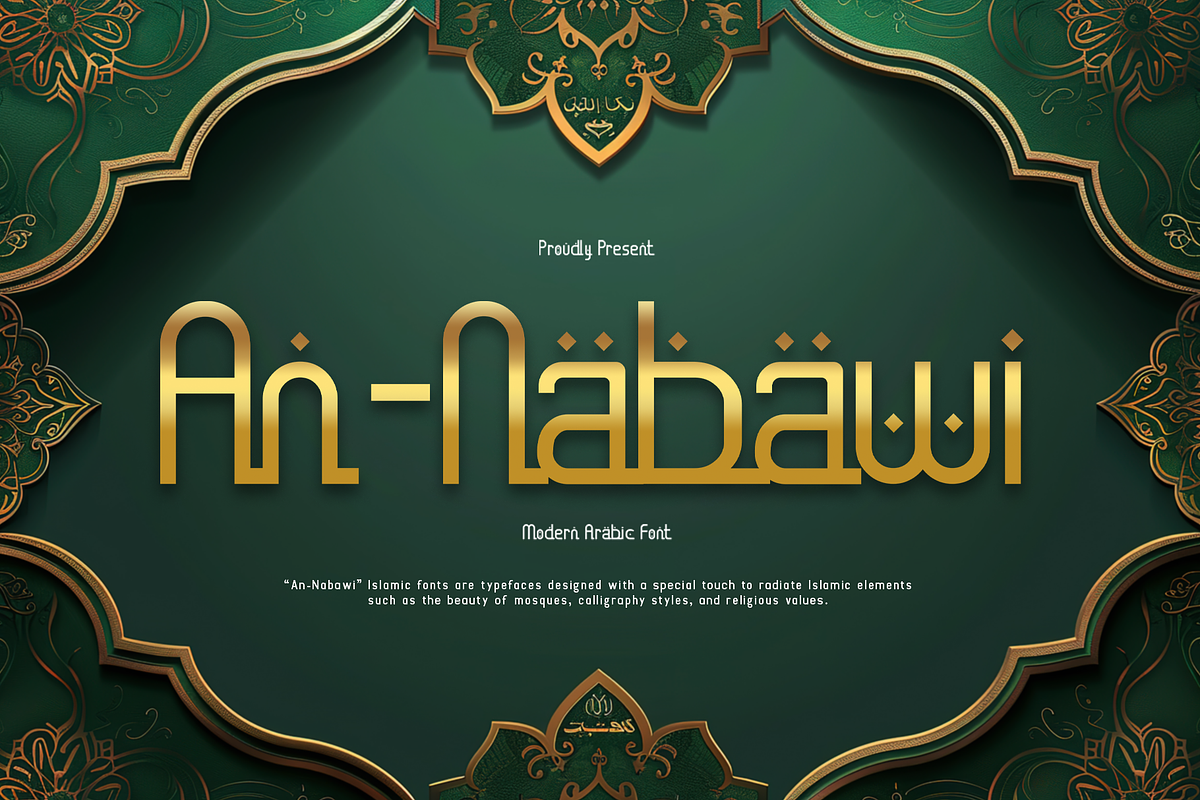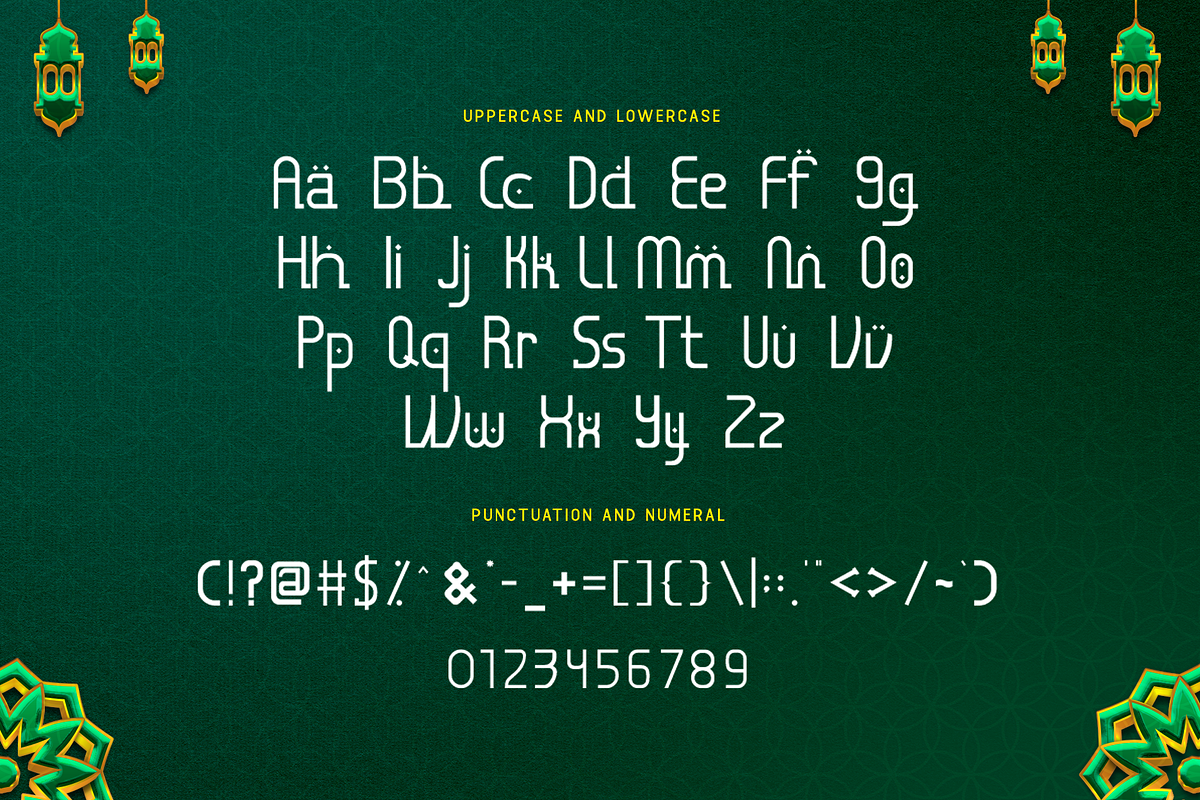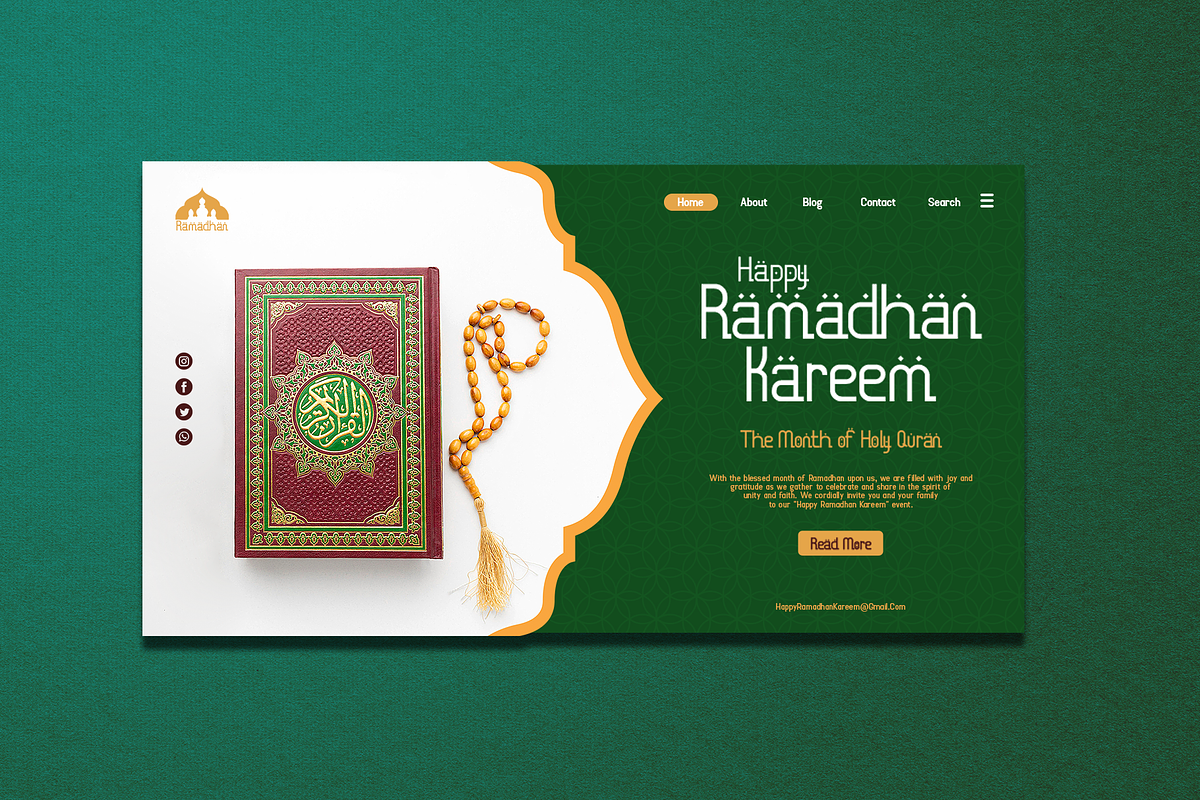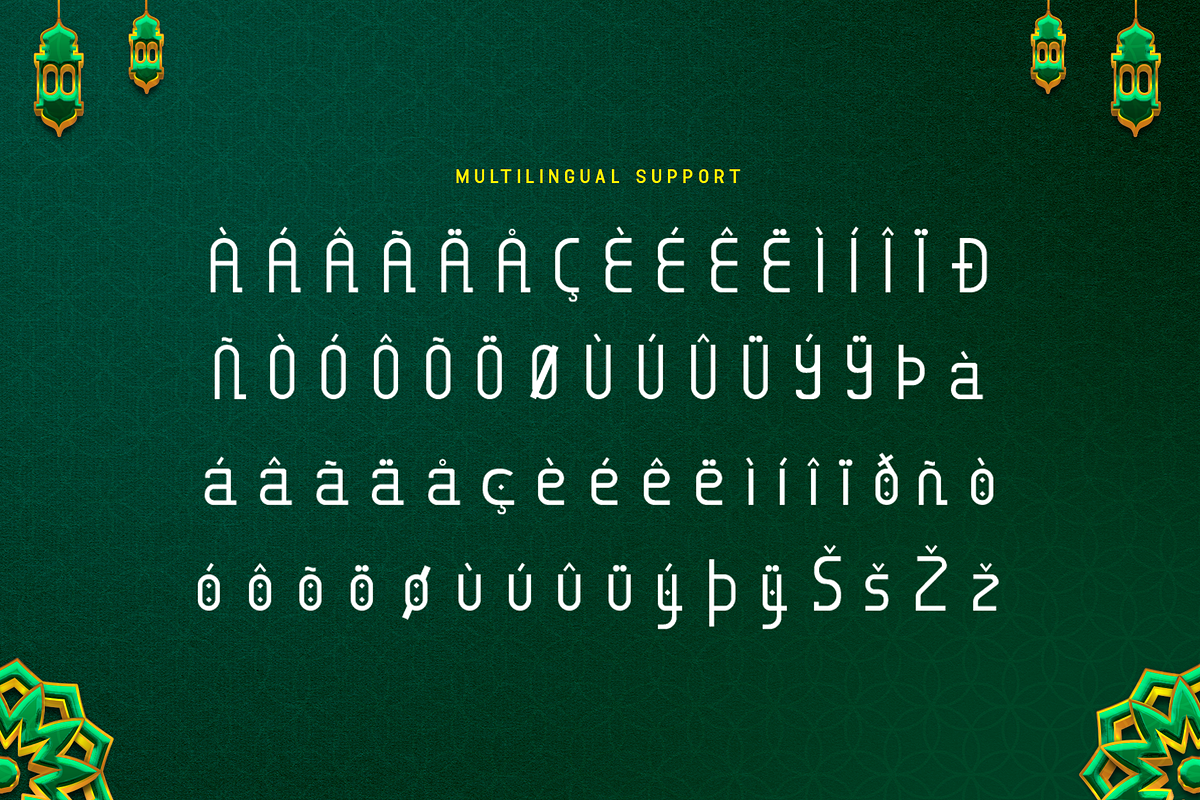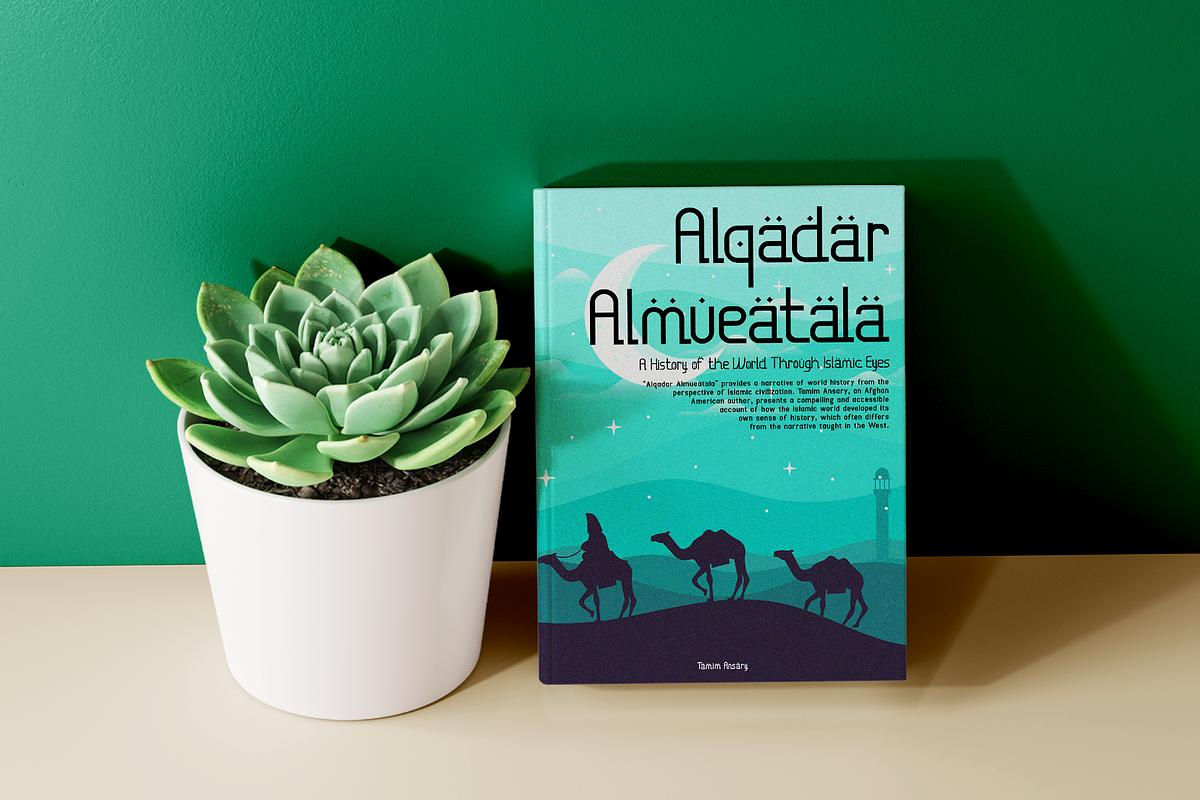
An-Nabawi – A Modern Arabic Font
An-Nabawi is a beautifully crafted modern Arabic font that seamlessly blends traditional calligraphy with contemporary aesthetics. Its smooth curves, balanced proportions, and elegant flow make it perfect for a variety of projects, such as branding, posters, invitations, editorial layouts, and product packaging. This font offers both beauty and functionality, ensuring your text remains visually striking and readable.
Designed with versatility in mind, An-Nabawi enhances bilingual projects by delivering a cohesive look in Arabic typography. Whether for digital or print media, it adds an air of sophistication to corporate designs, religious materials, and personal projects. With its unique fusion of tradition and modern design, it ensures your message resonates with cultural authenticity and style.
Add a touch of artistry to your designs with An-Nabawi. From formal publications to creative campaigns, this typeface is ideal for projects that require a modern yet authentic Arabic feel.